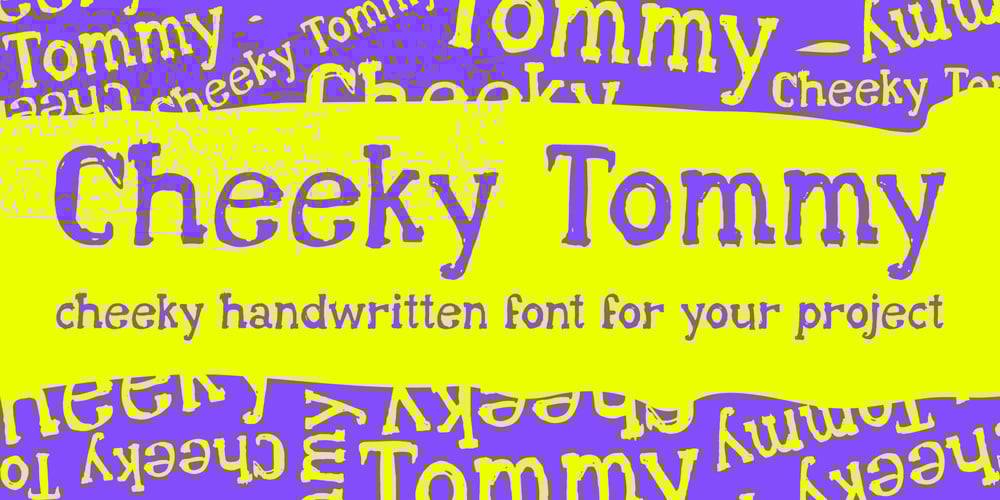
Cheeky Tommy
Cheeky Tommy font
Cheeky Tommy Font Family was designed by Alexander Sharkov and published by Alexander Sharkov. Cheeky Tommy contains 1 styles and family package options. Our new stylish and cheeky font is perfect for a variety of youth brands and projects. The letters are intentionally sloppy, but they look great in the context of any size text blocks!We hope our cheeky font will help you develop your cheeky project!